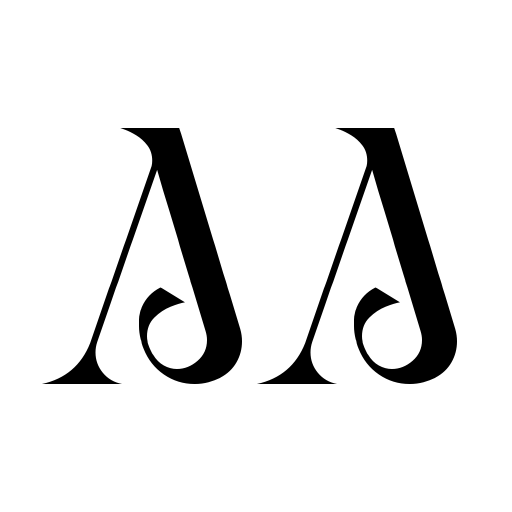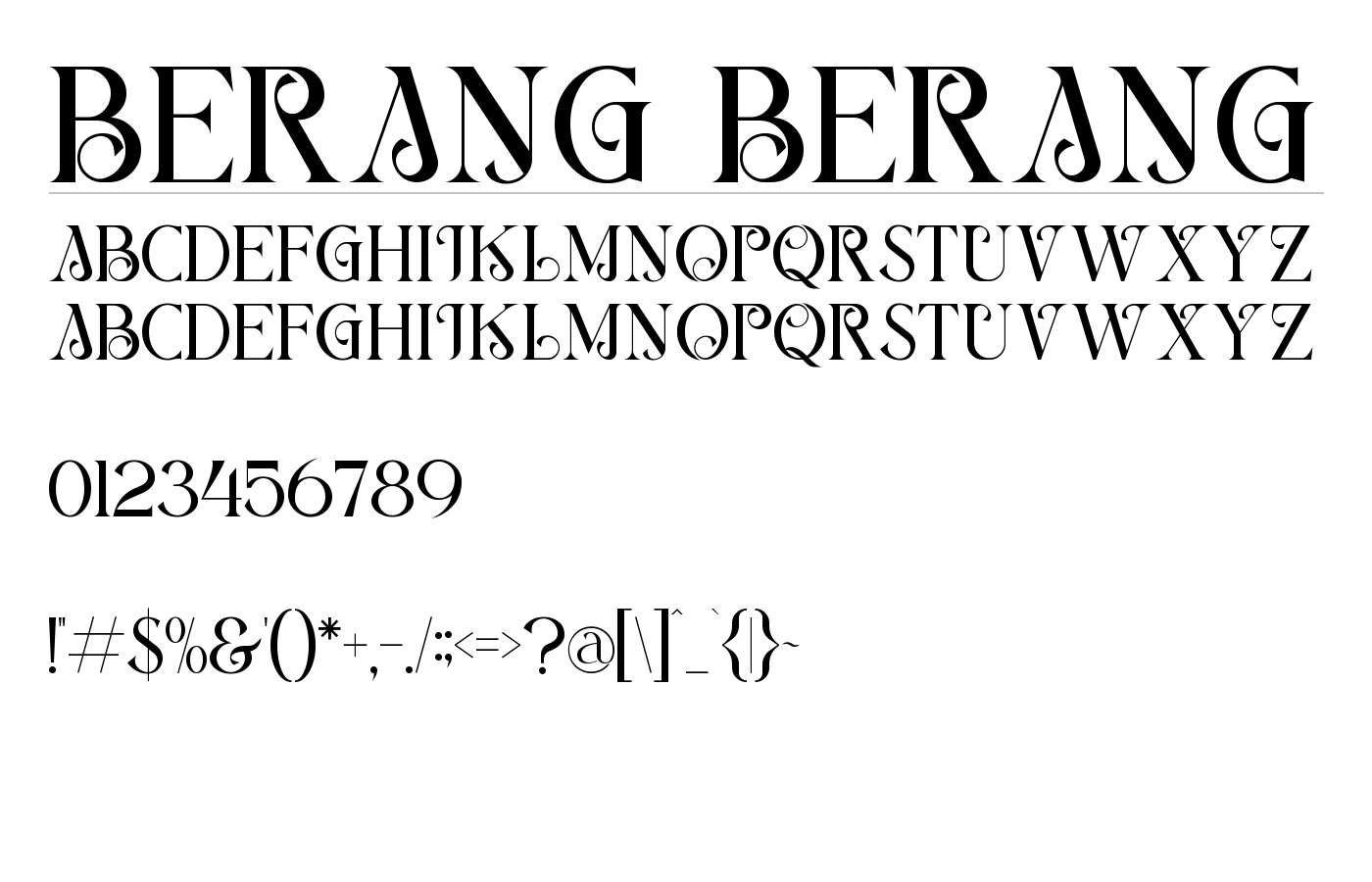
Berang Berang is a distinctive serif font that blends sharp, high-contrast strokes with playful, ornamental terminals, giving it a stylish and somewhat whimsical feel. Its elegant yet bold letterforms are perfect for fashion branding, luxury editorial headlines, and creative posters where a unique, sophisticated flair is desired. This font stands out with its decorative details, making it ideal for eye-catching display use rather than extended body text.
BERANG BERANG Font
About BERANG BERANG Font
| Font family | BERANG BERANG Font |
| Designer | Rio Anugrah Saputro |